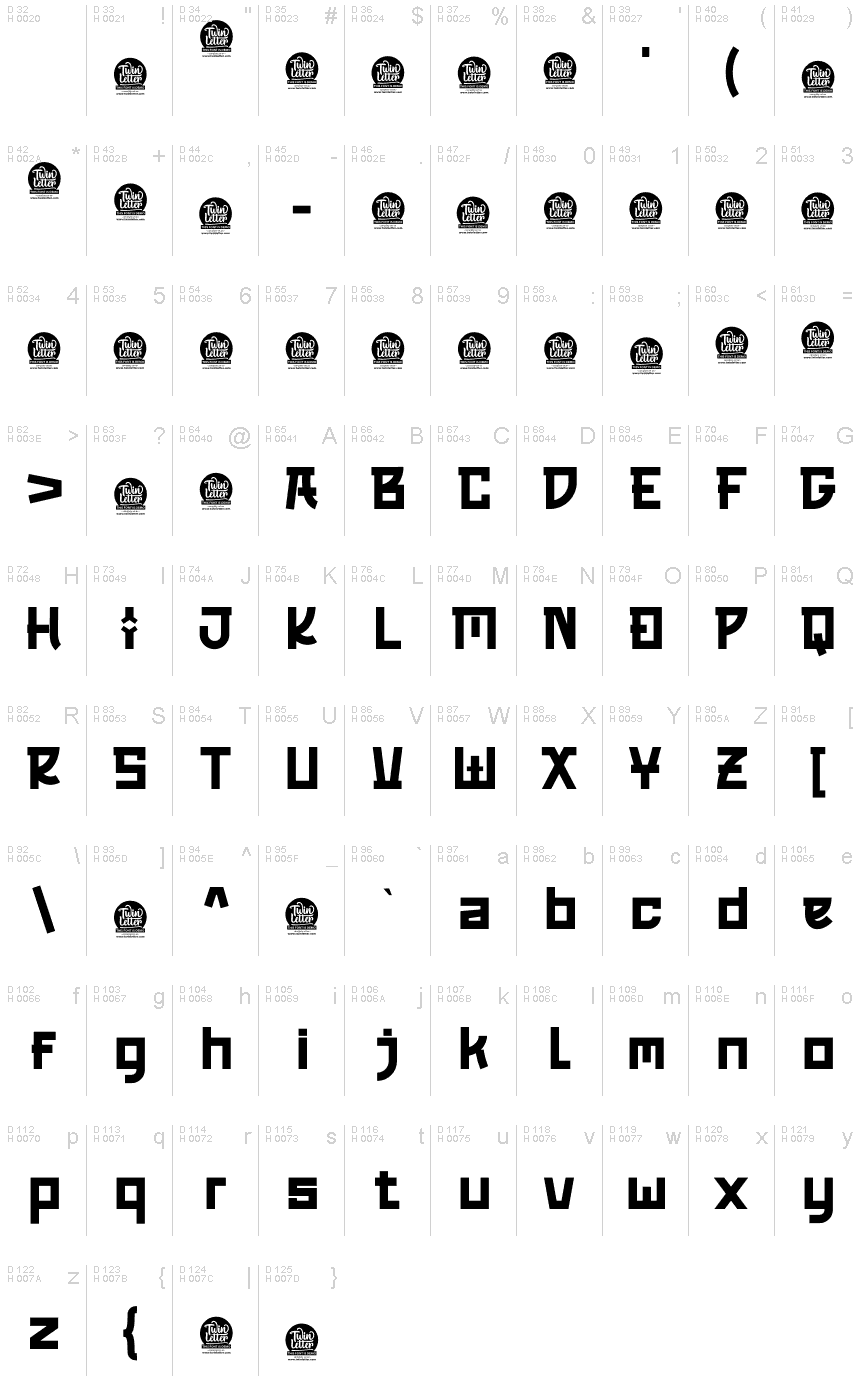
OREWA Personal Use
Introducing Orewa, a foreign font designed by Rozi, featuring a unique Japanese style. Suitable for any project that needs an exotic aesthetic, like creating eye-catching visuals for travel blogs or crafting logos inspired by traditional culture.